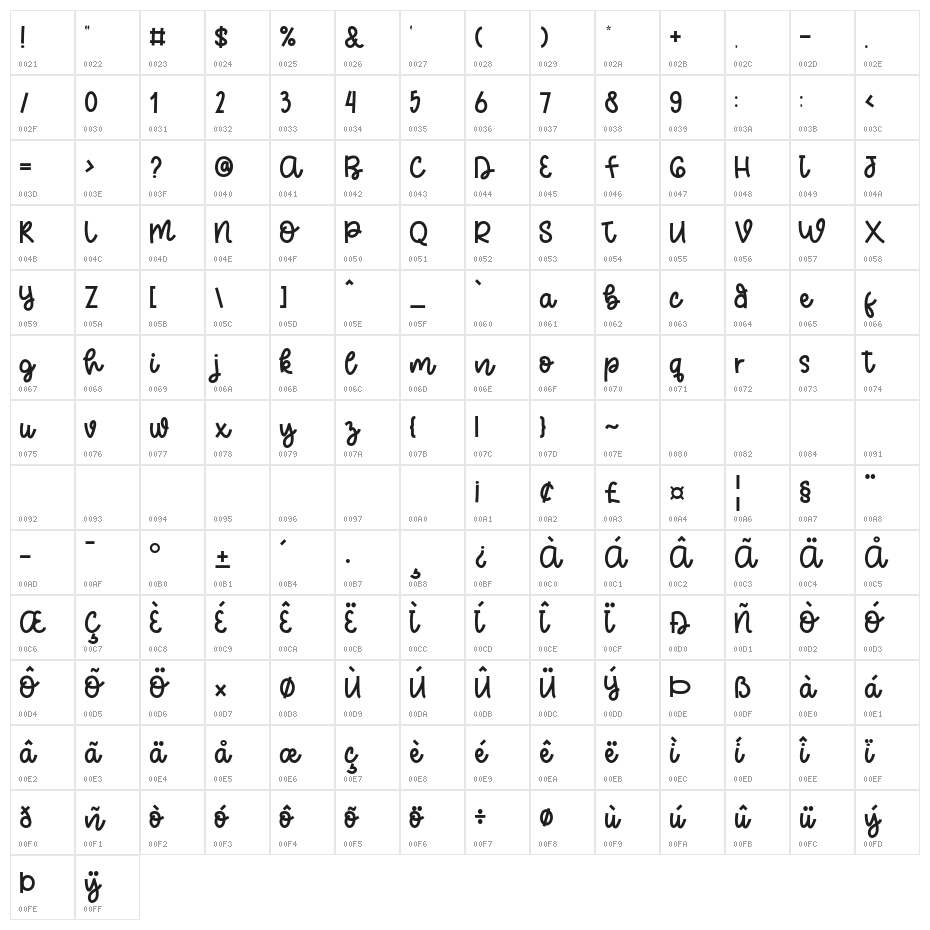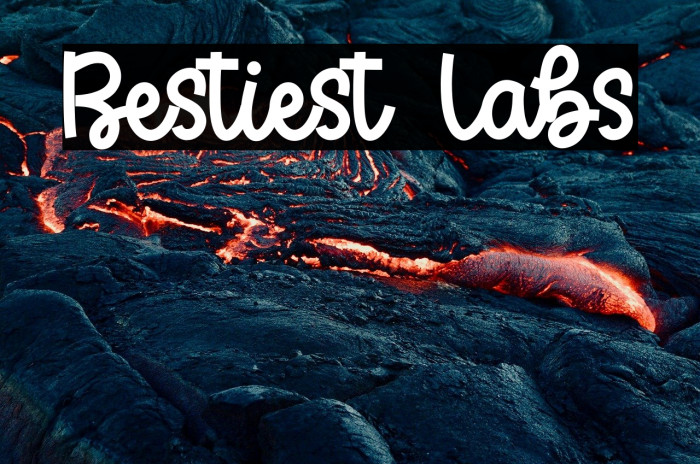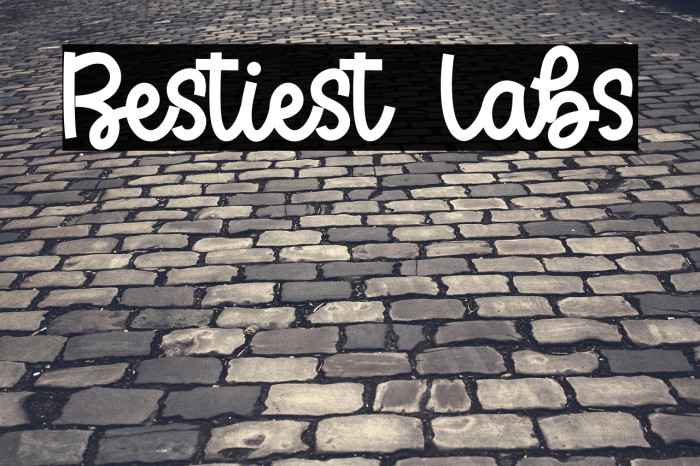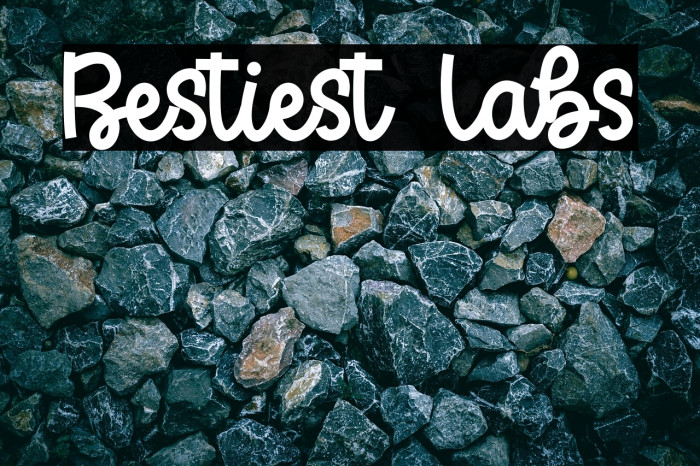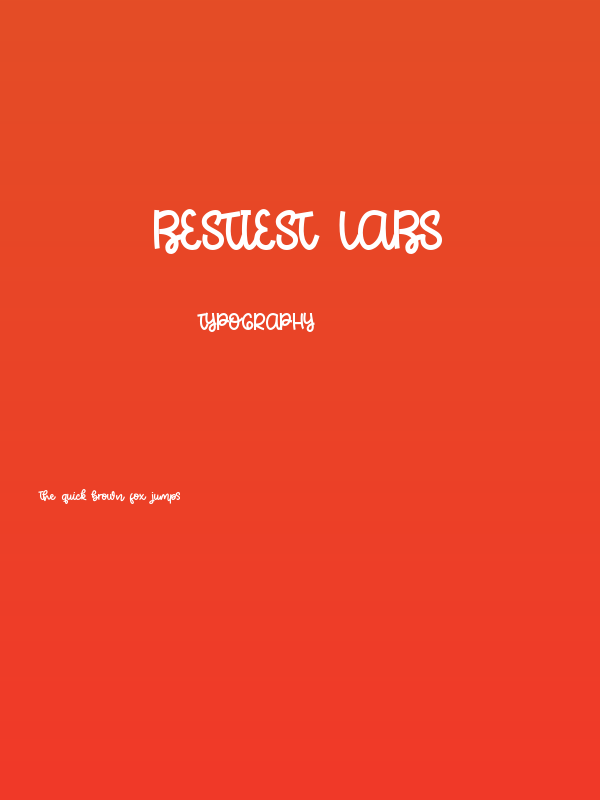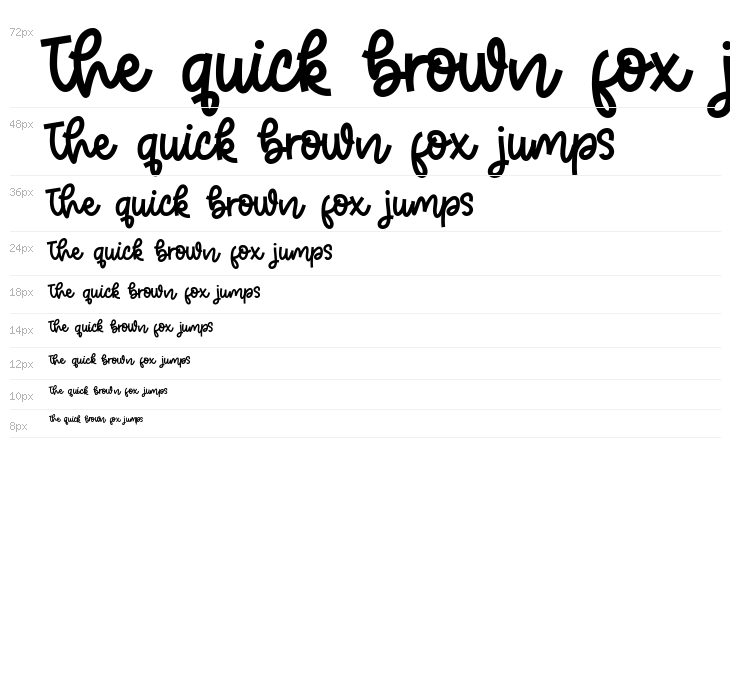
Bestiest Labs Font
Bestiest Labs Description
This playful and energetic font features a handwritten style with a bold and lively appearance. The characters are rounded and connected, giving it a friendly and approachable feel. The uppercase and lowercase letters maintain a consistent flow, while the numbers and special characters complement the overall design. Its thick strokes and smooth curves make it highly legible, even at smaller sizes. The font's whimsical nature makes it ideal for projects that require a personal touch, such as invitations, greeting cards, and playful branding.